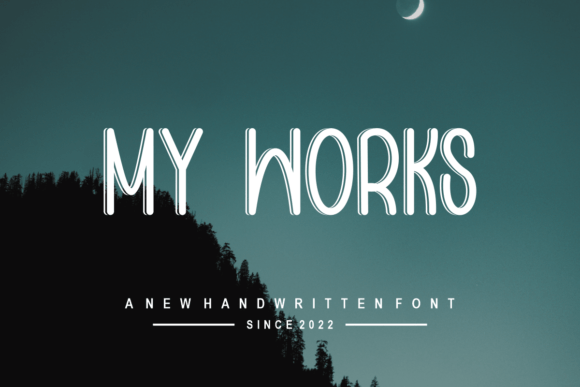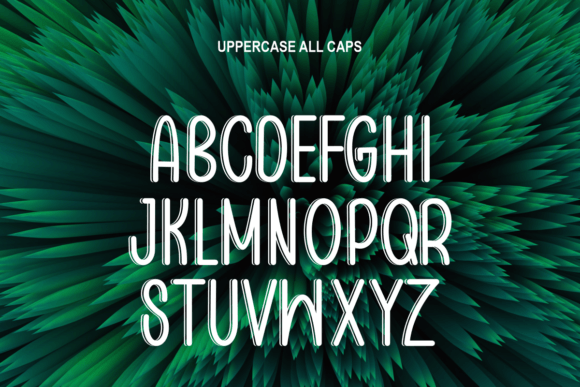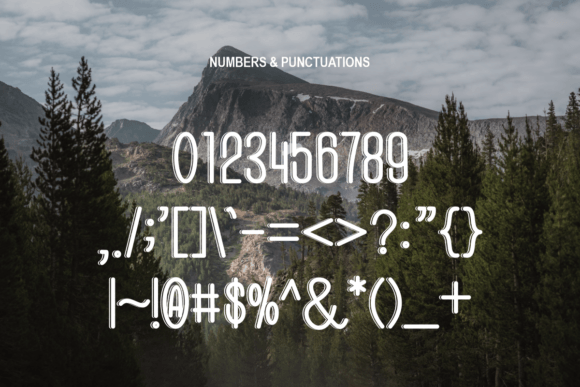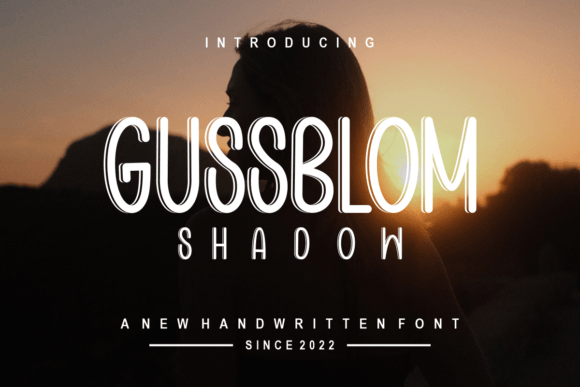
Introduction to Gussblom Shadow Font
Gussblom Shadow is a sweet and elegant sans serif display typeface.
It retains a classy calligraphic influence while feeling contemporary and fresh Fall in love with it and take your project to the highest level.
Key Features of Gussblom Shadow Font